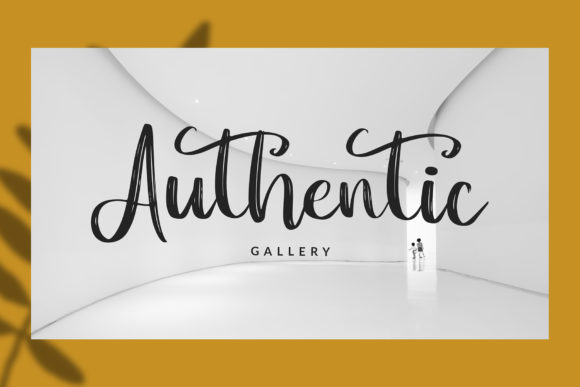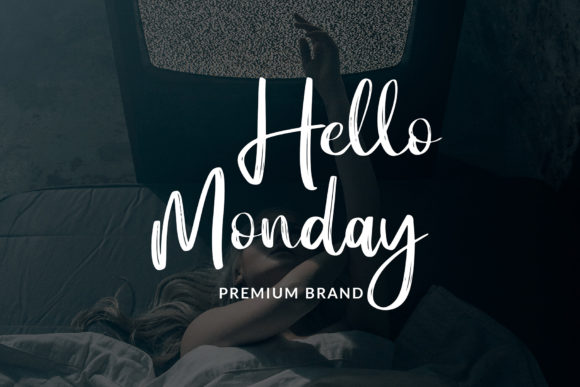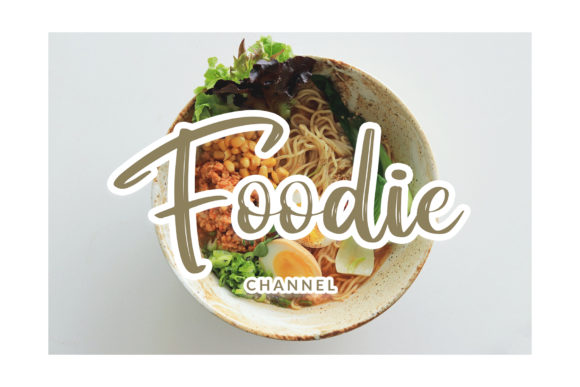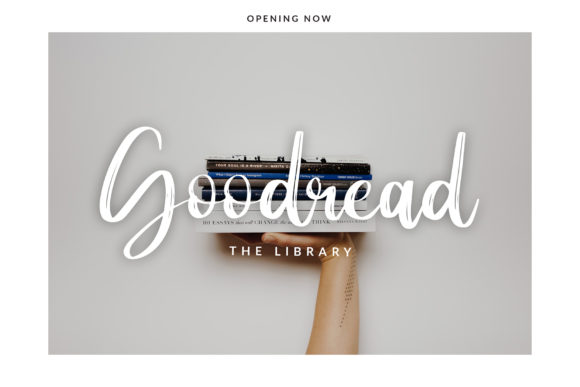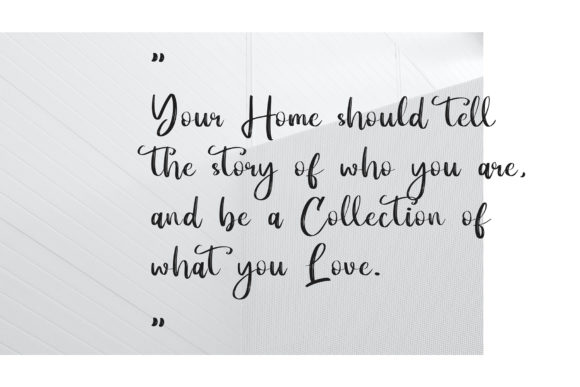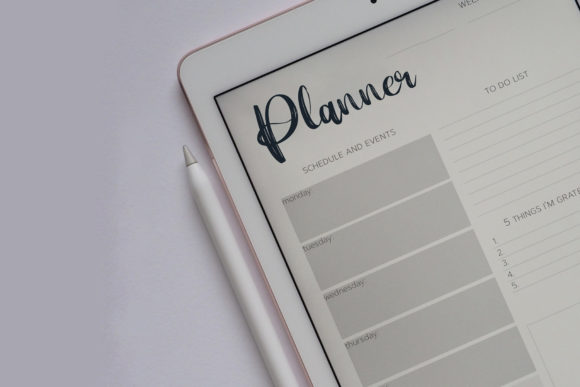
Introduction to Los Doel Font
Los Doel is a brush script font with a modern feel.
Add an elegant and luxurious touch to your designs with this amazing typeface Los Doel is perfect for branding projects, logo, wedding designs, social media posts, advertisements, product packaging, T-shirt design, product designs, label, photography, watermark, invitation, stationery, and any projects.